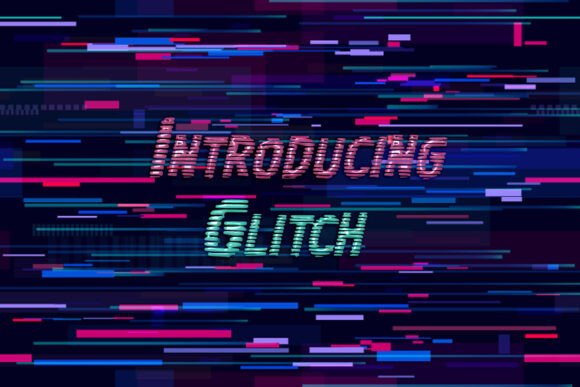
I’ll never forget the time I was working on a project for a client who wanted a bold, eye-catching font that would make their brand stand out. I scoured the internet for hours, trying out different fonts, but nothing seemed quite right. That was until I stumbled upon the Glitch font. With its edgy, distorted style, it was love at first sight! ✨ In this article, I’ll share my experience with the Glitch font, its features, and how to make the most of it in various design platforms.
- 💥 **Instant Impact**: Glitch font brings a bold, edgy vibe to any design project, making it perfect for attention-grabbing headlines and titles.
- ✅ **Versatility**: This font is adaptable and works well across print and digital platforms, including T-shirts, magazines, social media graphics, and more.
- 🎨 **Design Flexibility**: Glitch font comes with a range of OpenType features, glyphs, and stylistic alternates, giving you plenty of creative options.
While the Glitch font is amazing, there are a few things to keep in mind: 🤔
- ⚠️ **Legibility**: At smaller font sizes, Glitch can be a bit tricky to read, so it’s best used for headlines or titles.
- ⚠️ **Pairing**: Glitch font can be quite bold, so it’s essential to pair it with a complementary font that provides enough contrast.
The Glitch font was inspired by the world of digital technology and the imperfections that come with it. The designer wanted to create a font that captured the essence of distorted digital signals and transformed them into a bold, eye-catching typeface.
| Font Name | Glitch Font |
| Author | Heidi Vargas-Smith |